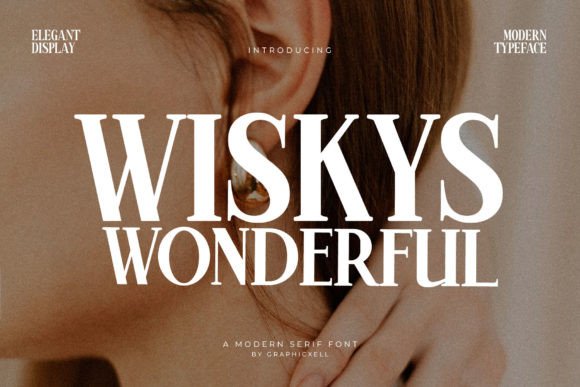
Unleash the allure of vintage elegance with Wiskys Wonderful, a remarkable serif typeface brimming with timeless beauty and modern charm. Crafted with meticulous attention to detail, this enchanting font family exudes a romantic and minimalist aura, seamlessly blending the allure of the past with the sophistication of the present.
Embark on a creative journey with Wiskys Wonderful, where every character dances with grace and precision. Its elegant curves and accurate glyph structure beckon you to create designs that effortlessly capture the hearts of your audience. Whether you're designing packaging, crafting fragrant identities, or composing captivating website banners, Wiskys Wonderful is your trusted companion, guiding you towards design excellence.
Immerse yourself in the limitless possibilities that await you with Wiskys Wonderful. From packaging that whispers of luxury to fragrance designs that evoke memories of forgotten eras, this versatile font family possesses the power to elevate your creations to new heights. Let it adorn the titles of your projects, adding an air of sophistication and timeless appeal. Discover the transformative power of Wiskys Wonderful and witness the magic it brings to your creative endeavors.